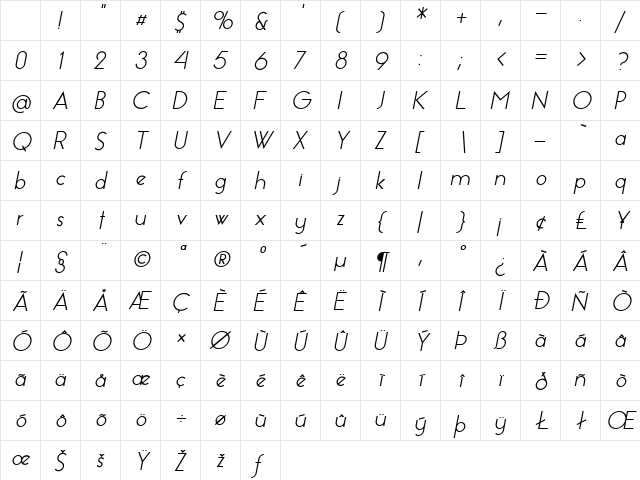
Complete Essence Sans Italic glyph index. Displaying only characters natively supported by Essence Sans Italic font.
Essence Sans is a composed and adaptable typeface that performs quietly and consistently across a wide range of design contexts. The slanted form adds forward momentum and visual energy.
Pro Tip: Use Essence Sans for emphasis, pull quotes, and subheadings where its slanted energy can add rhythm to the layout.